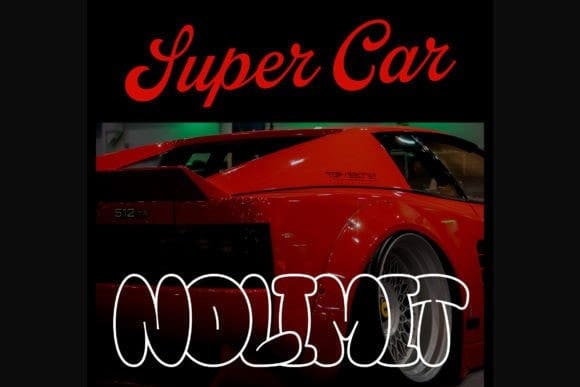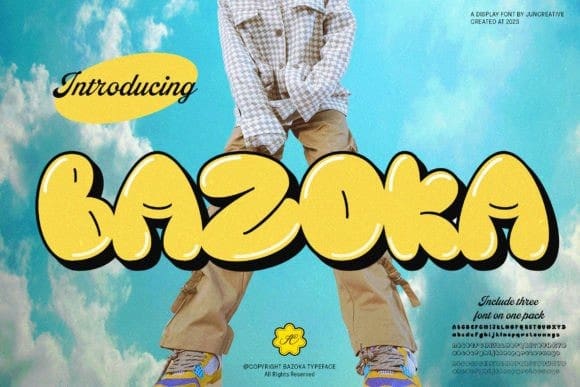
Bazoka Display Font
Bazoka Display Font, is a display font that mimics the look of hand-drawn graffiti lettering. The letters are rounded and bubbly in shape, with a bold appearance. This style is perfect for informal or urban-themed designs, such as posters, flyers, and street art. Overall, this graffiti bubble font is a fun and energetic way to add personality to your design.